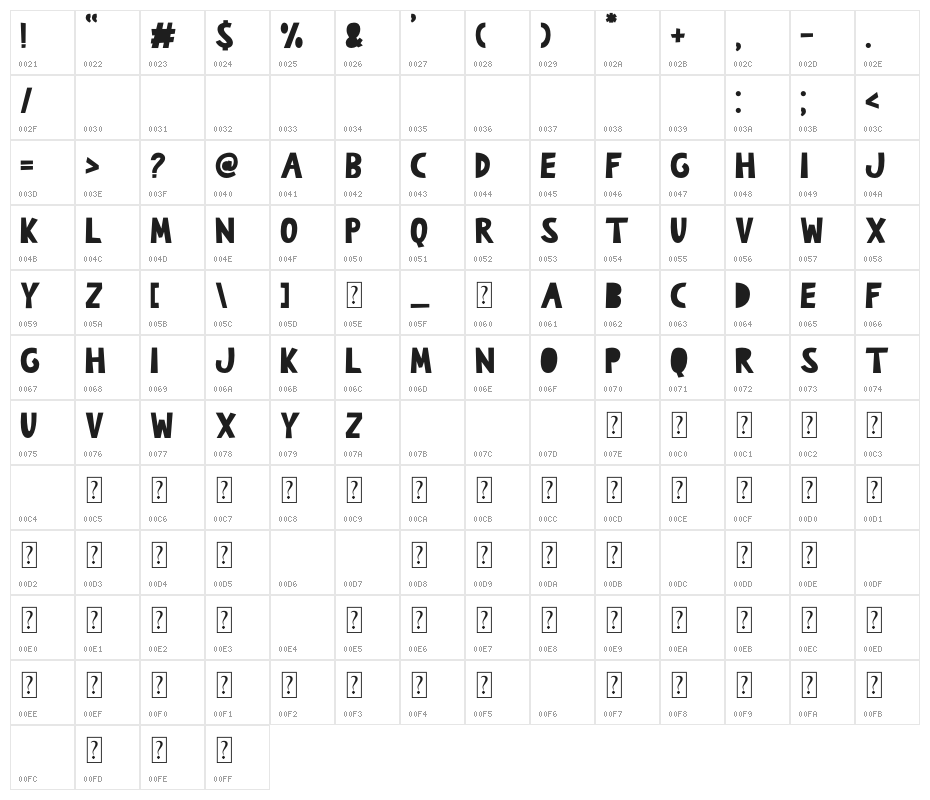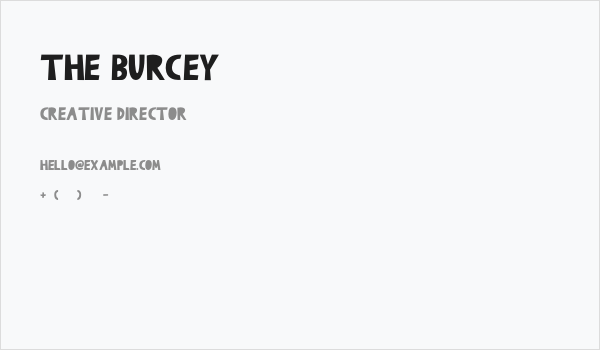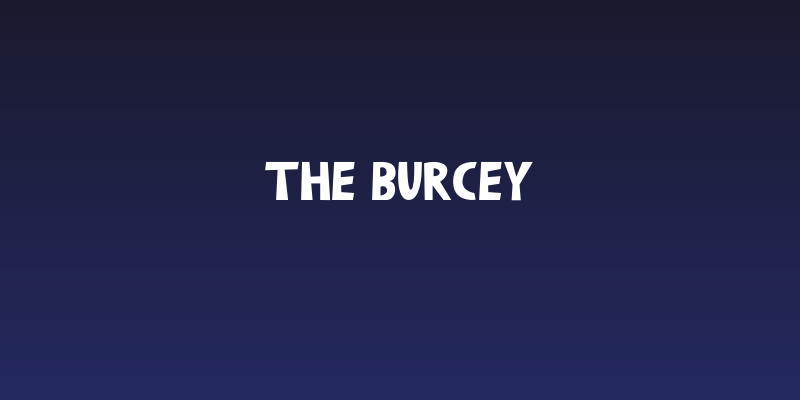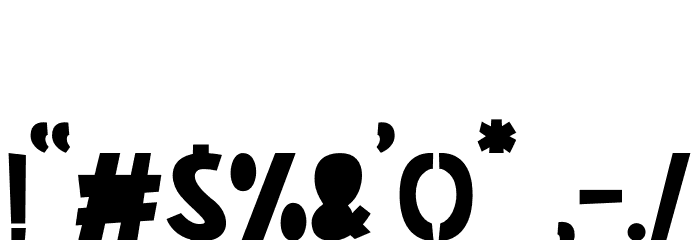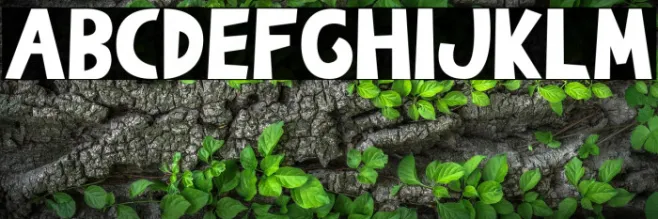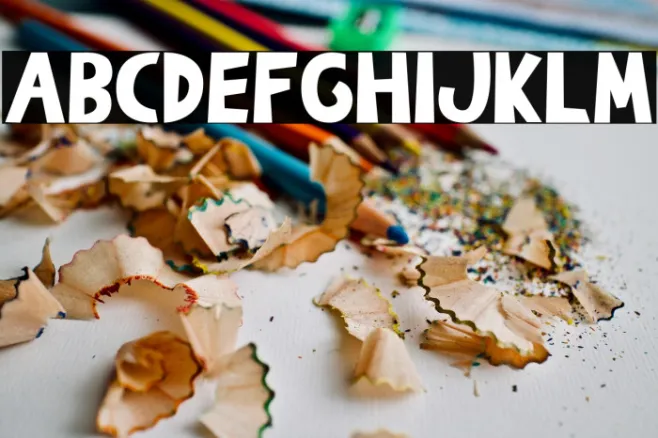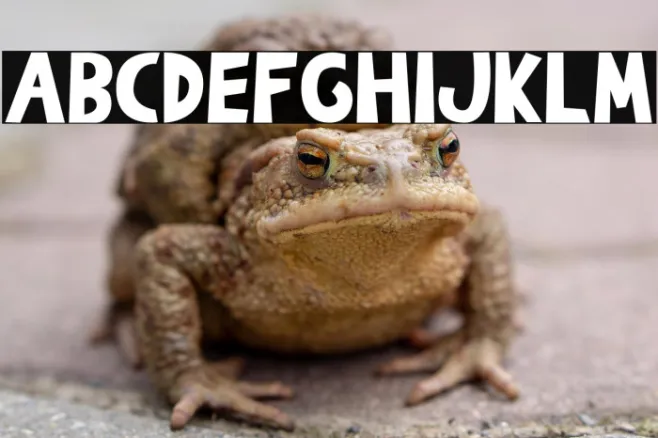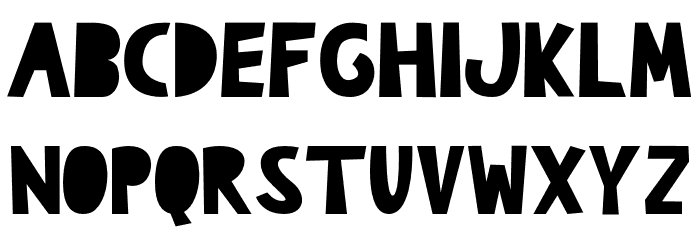
The Burcey Font
The Burcey Description
This font features a bold and playful design with exaggerated curves and angles, giving it a lively and dynamic appearance. The uppercase letters are particularly striking, with a strong presence and unique character shapes that stand out. The lowercase letters maintain the same playful style, ensuring consistency throughout the typeface. The numbers and special characters are equally bold, making them suitable for attention-grabbing designs. This font's whimsical nature makes it ideal for creative projects that require a touch of fun and energy.
| Overall Style | Playful, Energetic |
| Proposed Projects | Ideal for children's books, playful branding, posters, and creative advertising campaigns. |